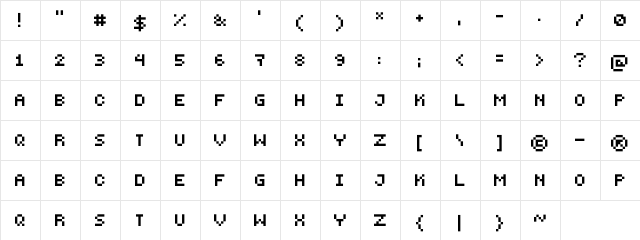
PEPminus10 Regular Font Preview
PEPminus10 Regular
Design Context for PEPminus10 Typeface
PEPminus10 offers clean, dependable letterforms without strong stylistic allegiance, making it a practical choice for designers who need flexibility.